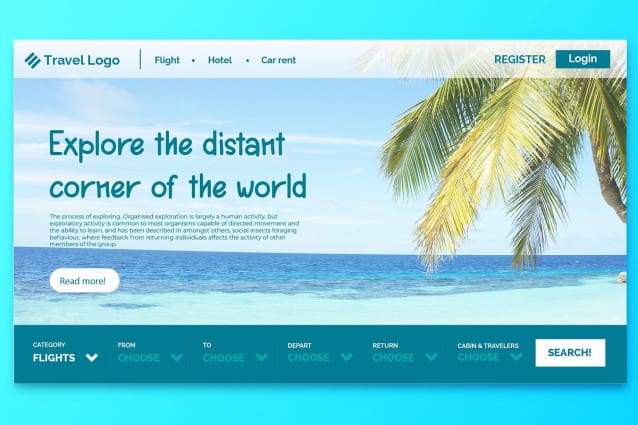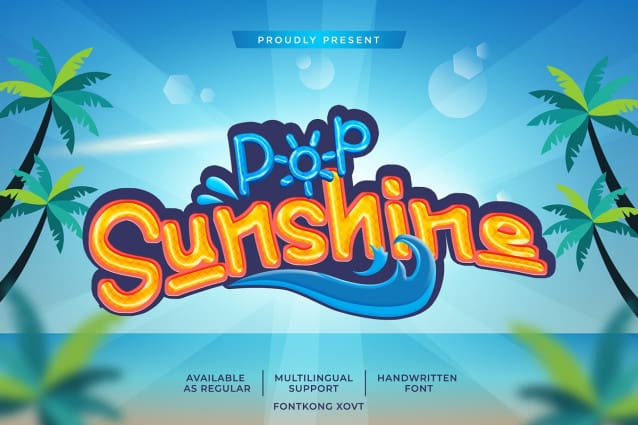
Pop Sunshine Font
Pop Sunshine Font, a delightful handwritten font that brings a burst of joy and personality to your designs. This font features playful, free-flowing characters that mimic the natural strokes of a hand-drawn script, making it perfect for adding a personal and inviting touch to any project.
“Pop Sunshine” is ideal for a variety of creative applications, from greeting cards and invitations to social media posts, branding, and children’s book illustrations. Its charming and whimsical style ensures that your text stands out with a warm, friendly vibe. The font includes a full set of uppercase and lowercase letters, numerals, punctuation, and multilingual support, providing all the tools you need to craft beautiful and cohesive designs.
Let “Pop Sunshine” brighten up your projects with its unique charm and handwritten elegance. This font is ready to add a touch of sunshine to your creative toolkit.